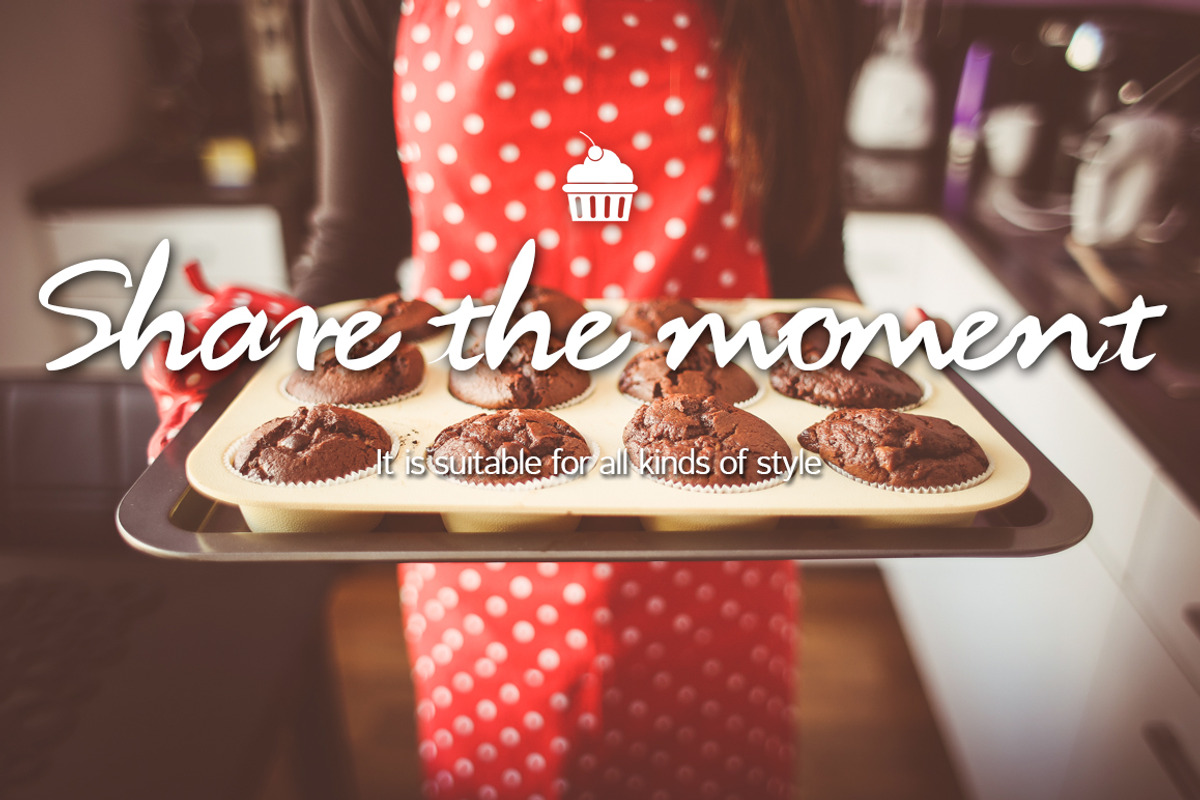
Christmas font-Handwritten font
Christmas font-Handwritten font by LYB-Design is a font selected for branding, posters, packaging, typography.
Why Christmas font-Handwritten font is worth a look
Christmas font-Handwritten font by LYB-Design fits naturally into Branding, posters, packaging, typography.